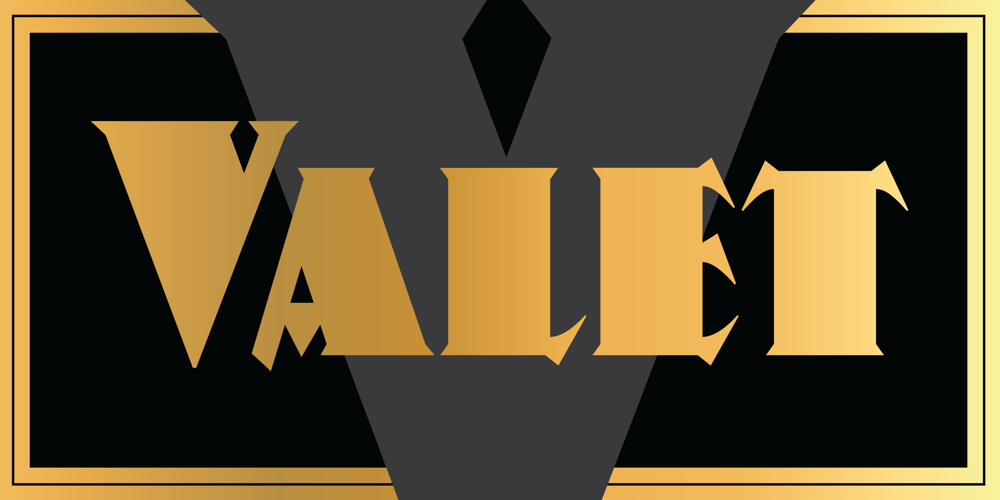
Valet Font Family was designed by Patrick Griffin and published by Canada Type. Valet contains 2 styles and family package options. Valet is deco moderne the way it was meant to be: Big, bold, classy, flashy, and clean at the seams. Its message is rich, strong, confident and reliable. Valet tells you that it’s used to thorns being part of every rose, that it can handle sharp objects just fine, and that it’d much prefer buying the tuxedo rather than renting it. This font grew out of an uncredited early 1970s all-cap film type called Expression. An appropriate deco lowercase was added, along with small caps, zippy titling caps, and Pan-European language support. With over 9250 glyphs, we bow our heads with the admission that we kind of got carried away with it.